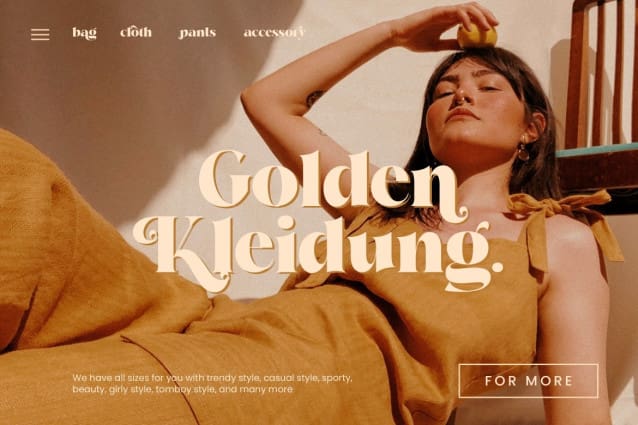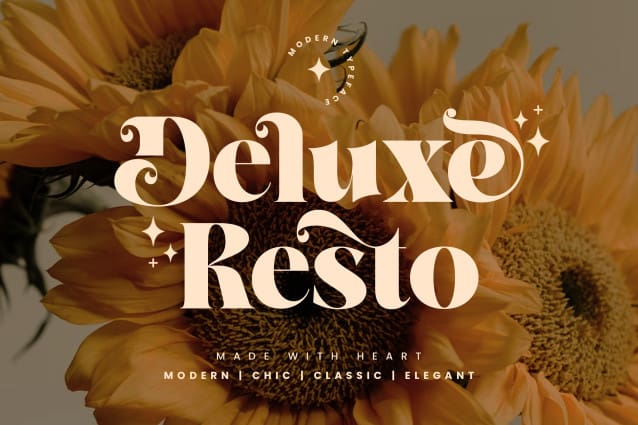
Deluxe Resto Font
Deluxe Resto Font is a romantic ligature serif font created with joy and love. This font makes a harmonious combination for your modern and classic layouts. Perfect for any luxury design like hotel logo, restaurant menu, restaurant poster or web, wedding invitation, and many others